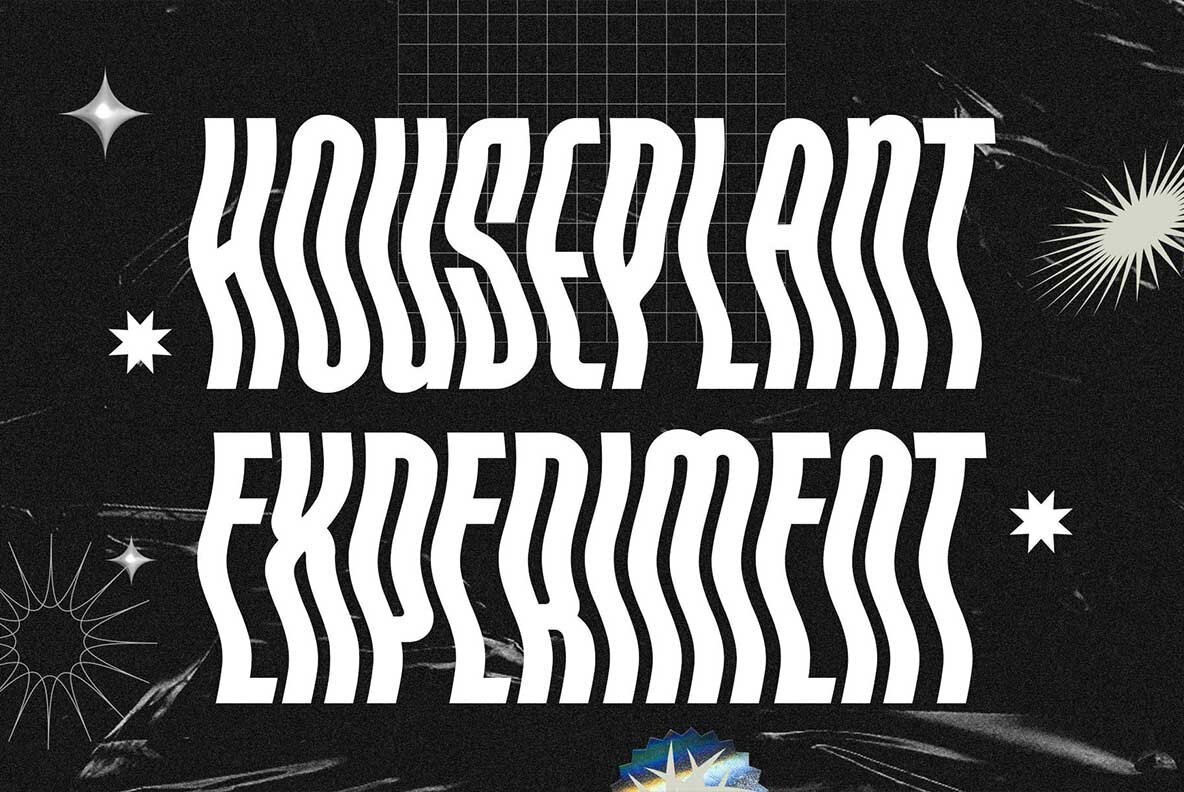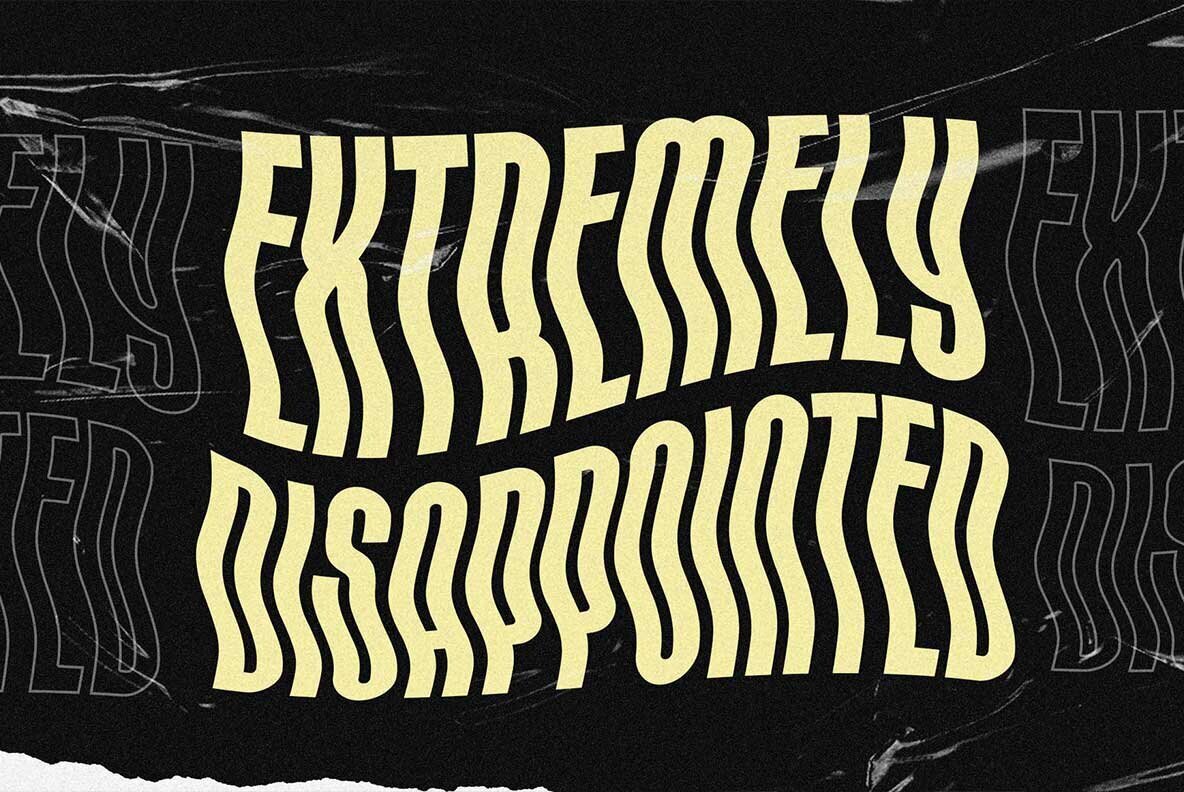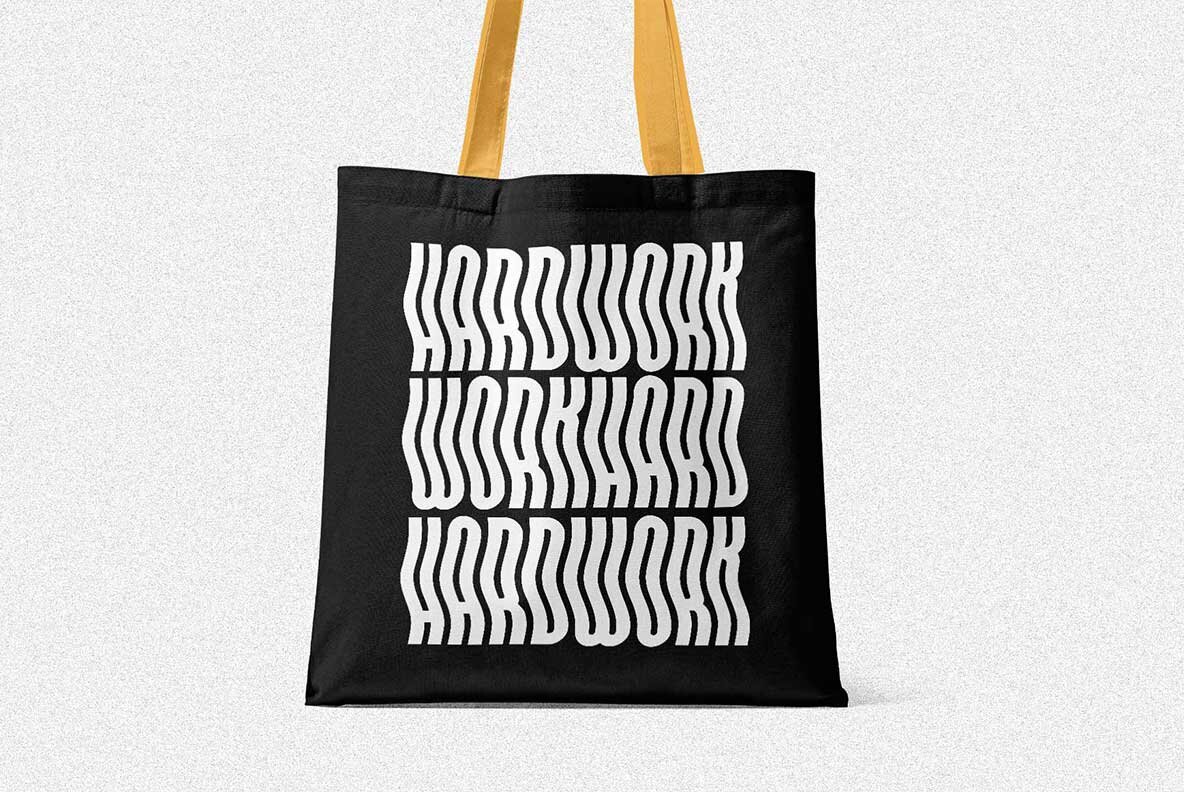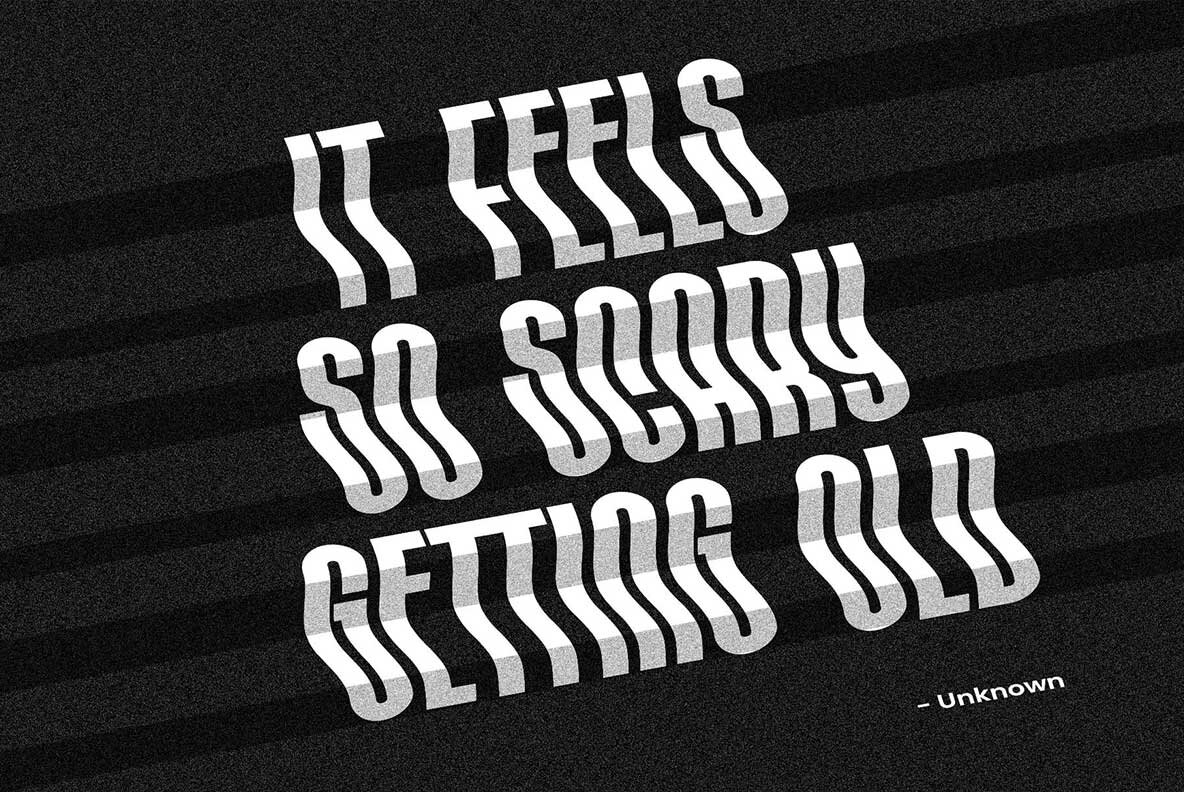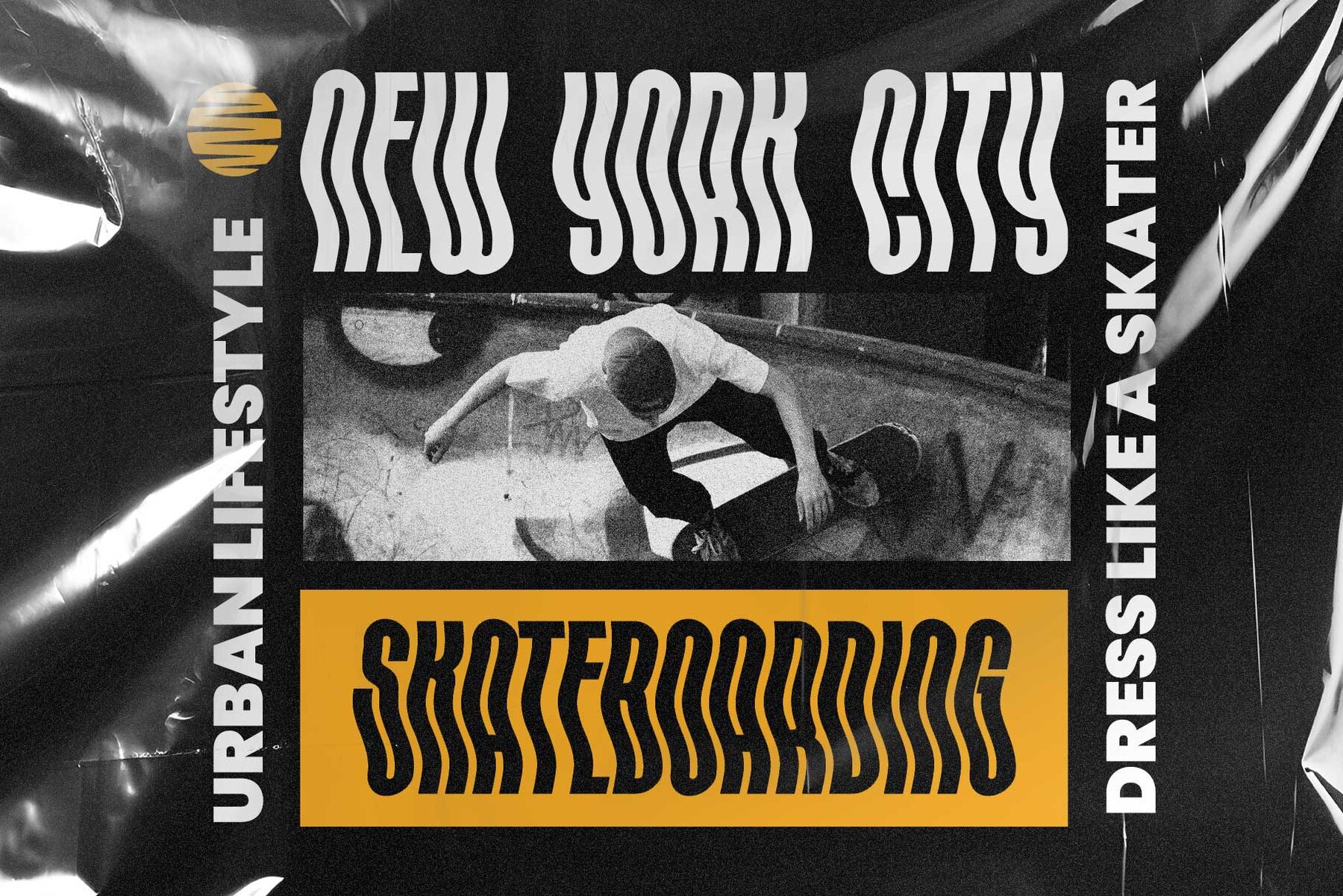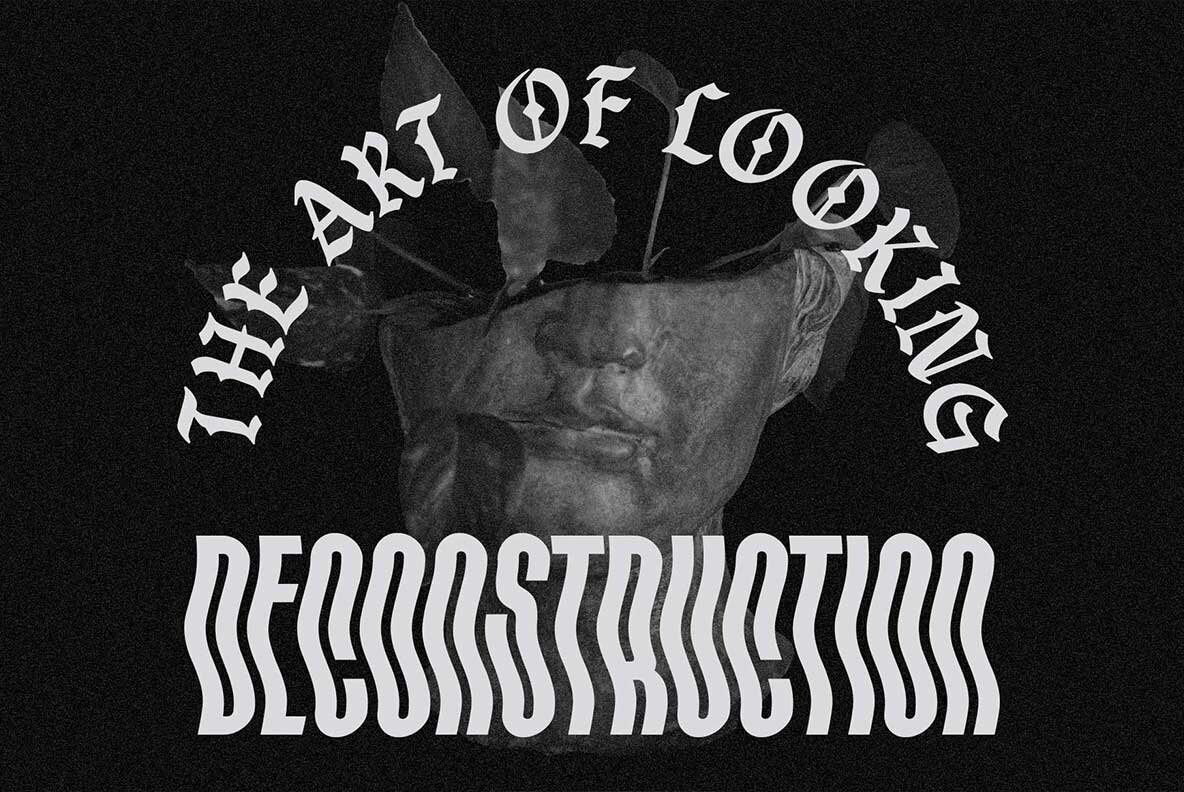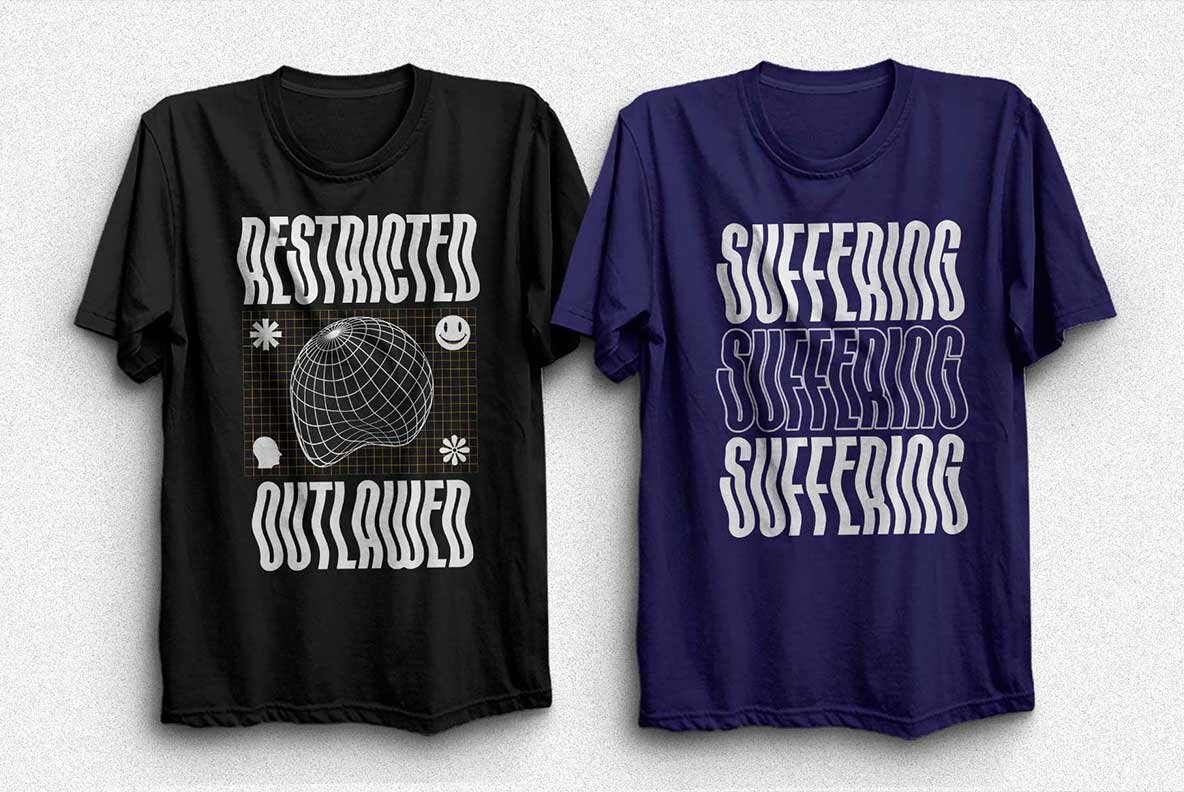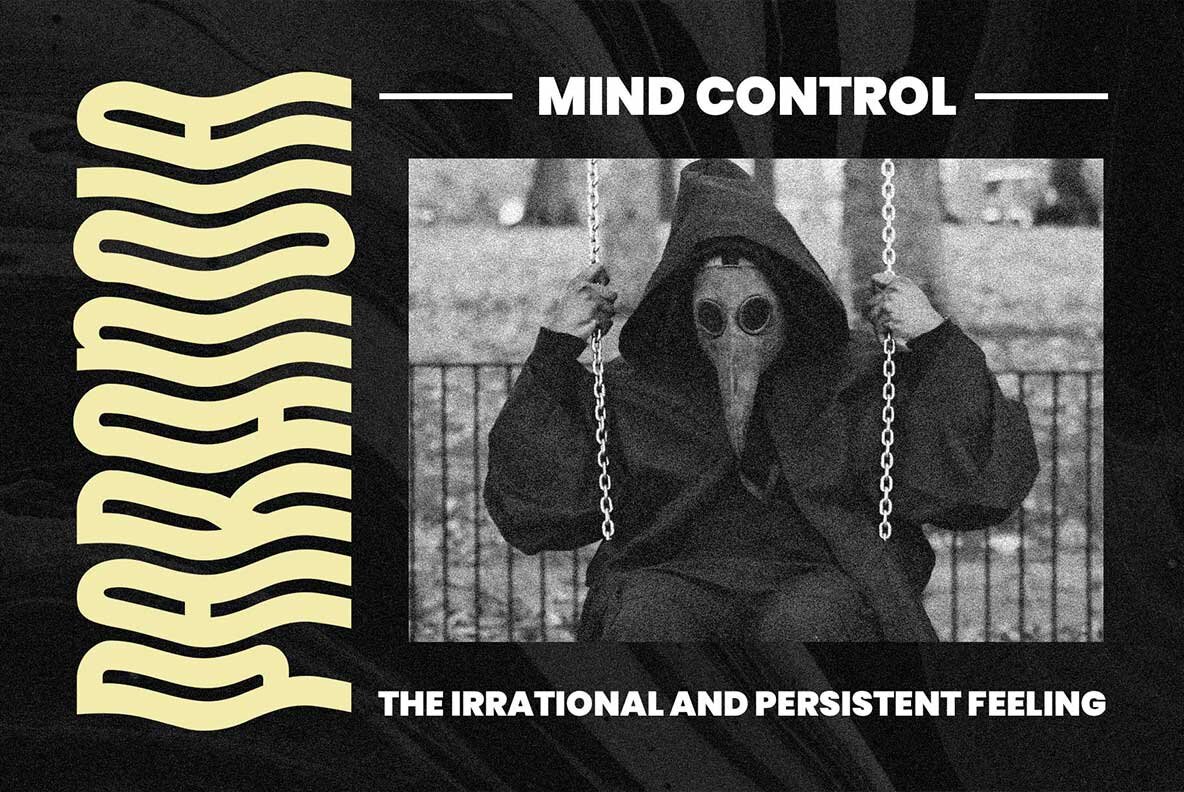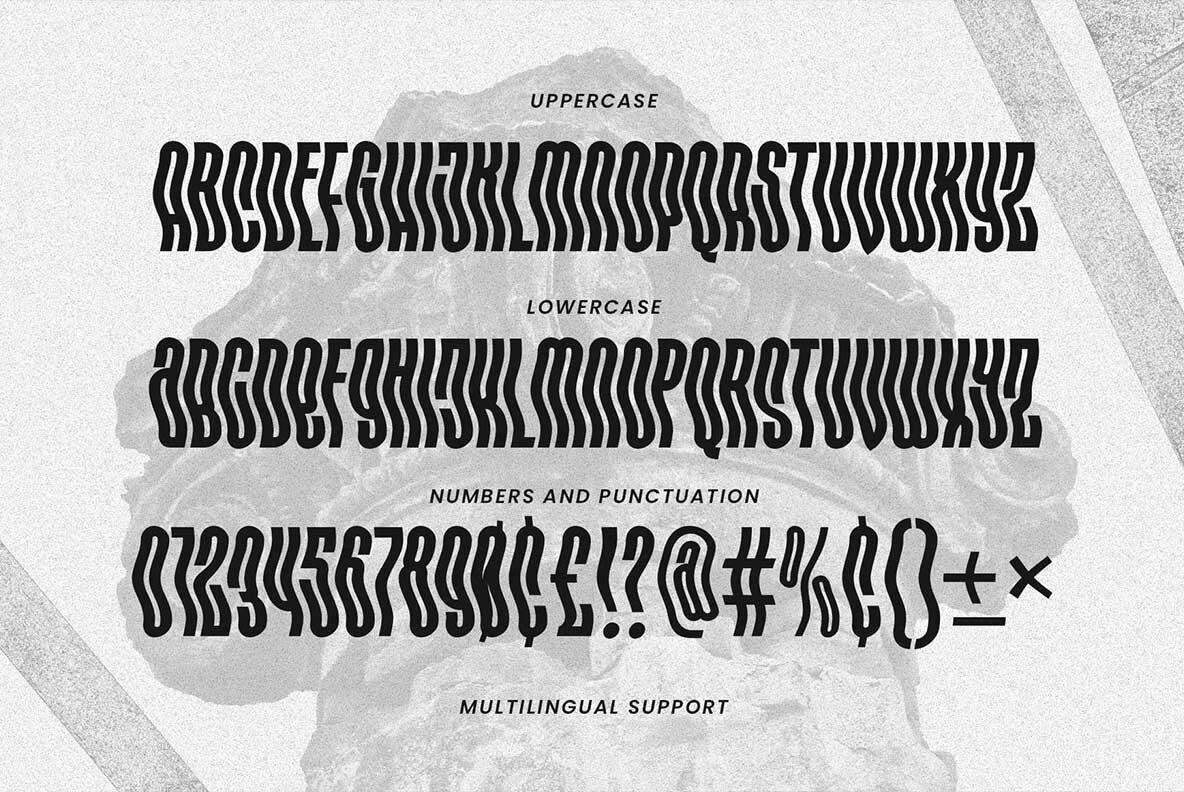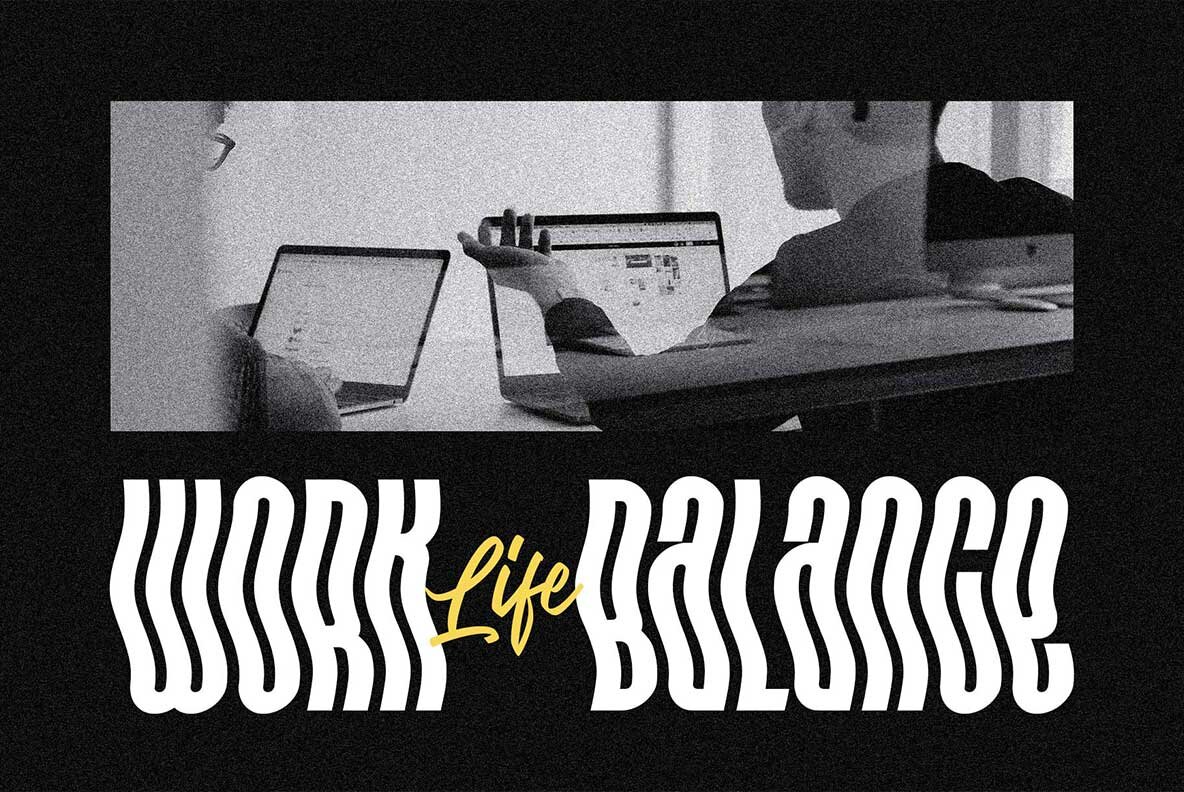
Introducing Hipnouma, an experimental condensed font that draws inspiration from psychedelic and brutalist styles. This unique typeface is designed with a consistent wavy effect, creating an elegant and attention-grabbing aesthetic, making it perfect for your design projects.
Hipnouma comes with special characters that enable you to create typography variations effortlessly, and it also supports multiple languages. It's the ideal choice for headlines, posters, logos, websites, social media, apparel, quotes, packaging, and more.